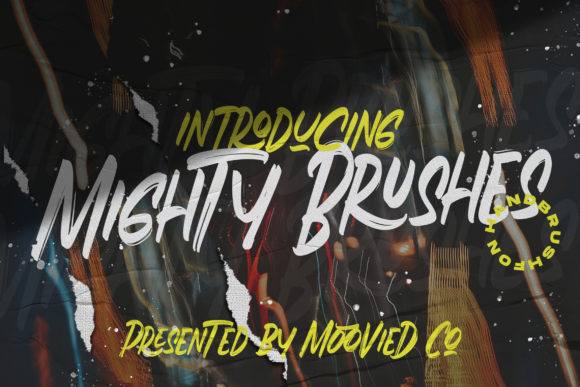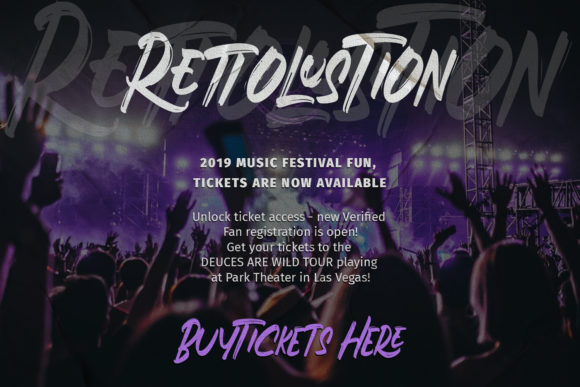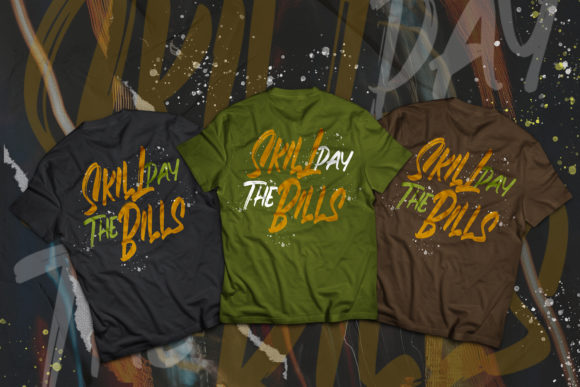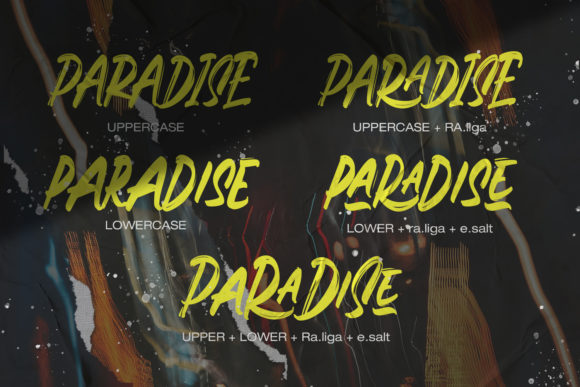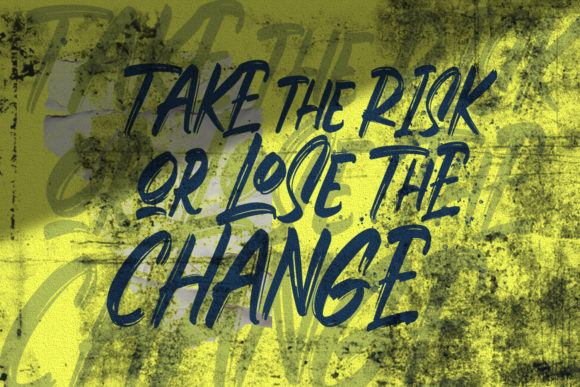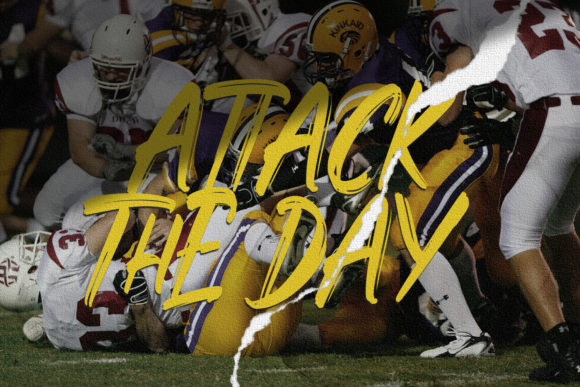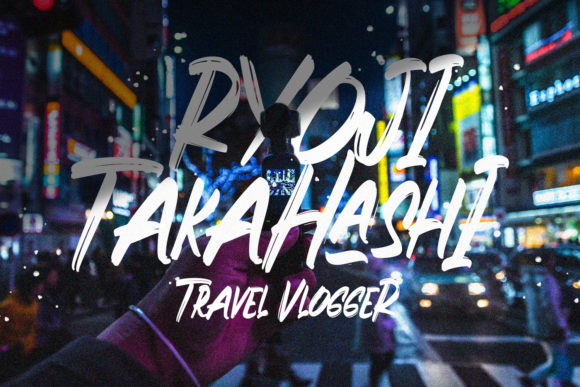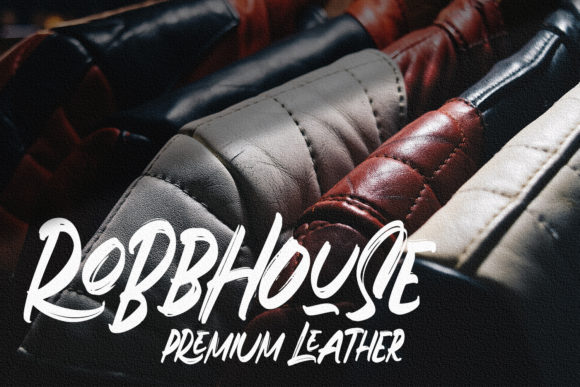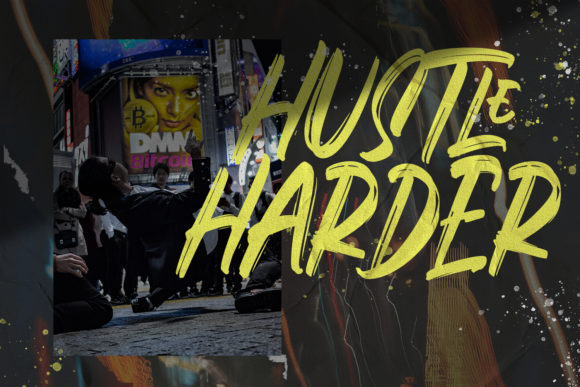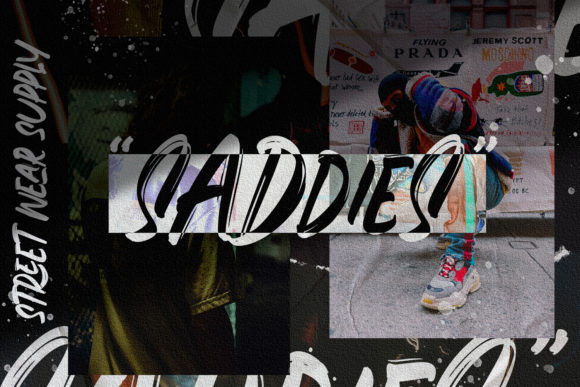
Mighty Brushes Font
About Mighty Brushes Font
Mighty Brushes is a unique handbrushed font. It had an incredibly endearing and authentic look. Use this gorgeous and unique script font to bring any DIY project to life!